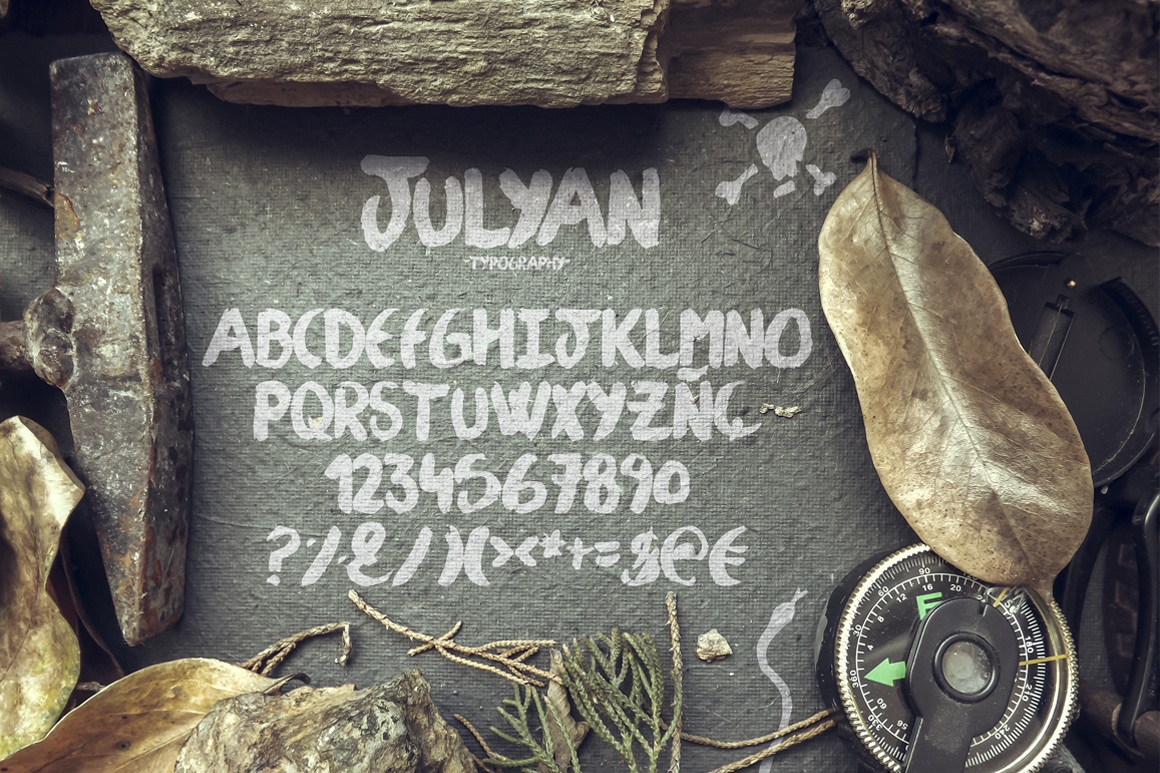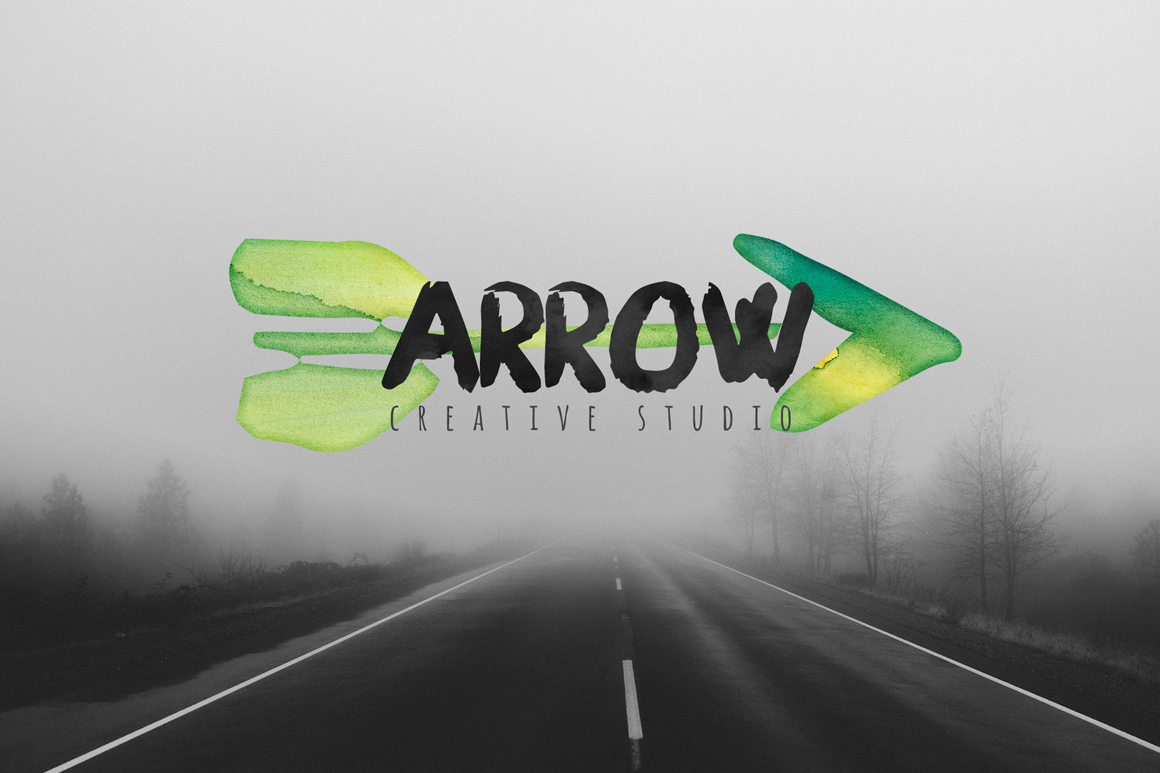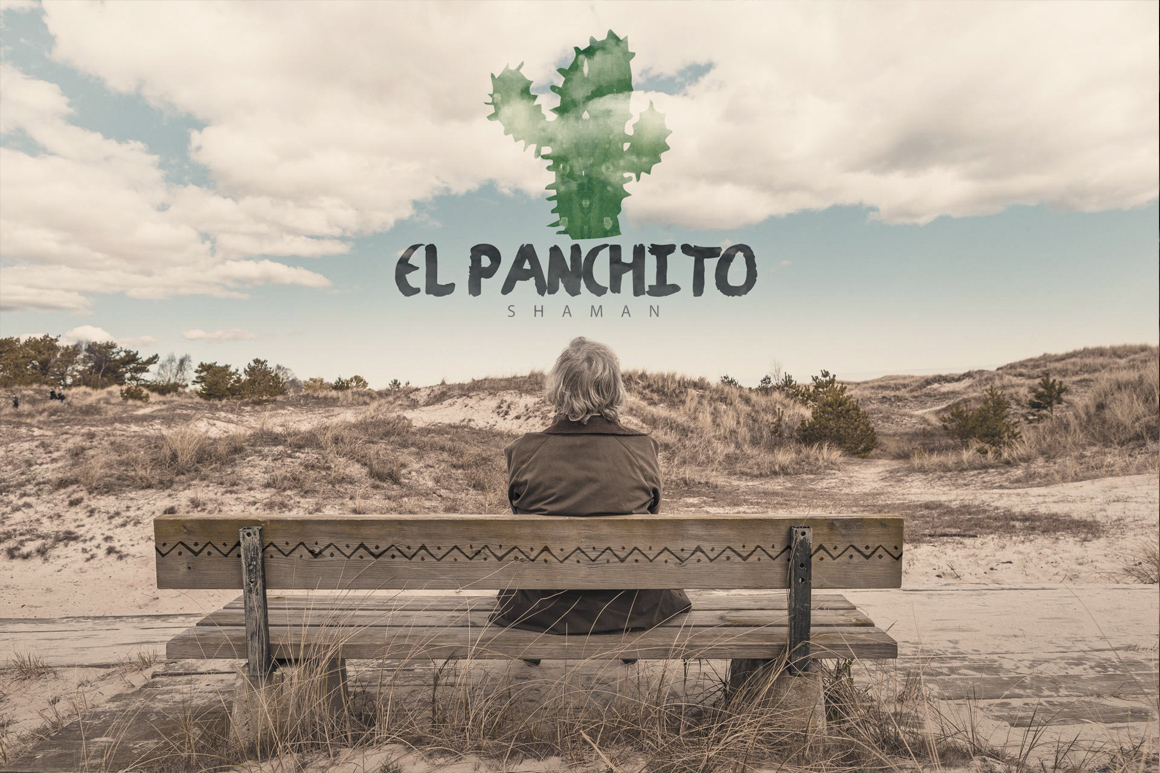
Introduction to Julyan Font
Juylan is a display font that is created by hand and feels like it was created with water-paint.
Key Features of Julyan Font